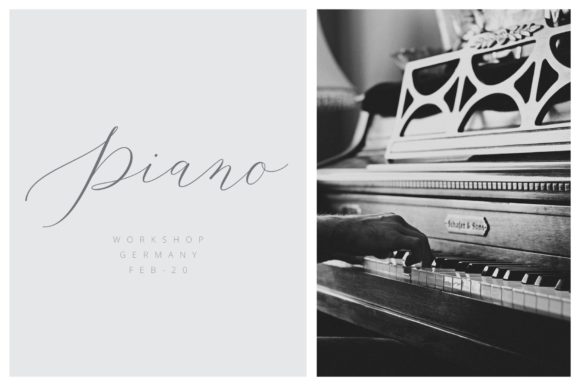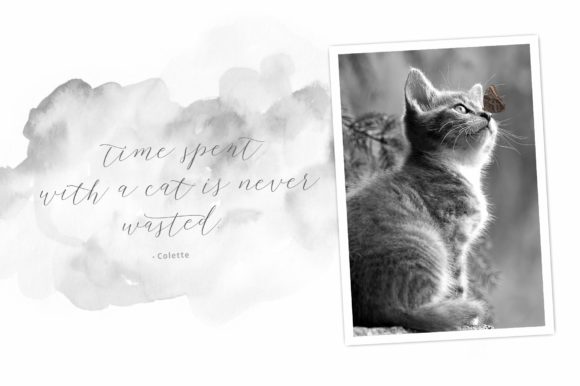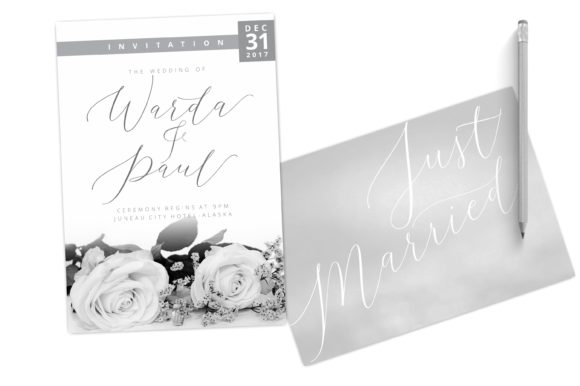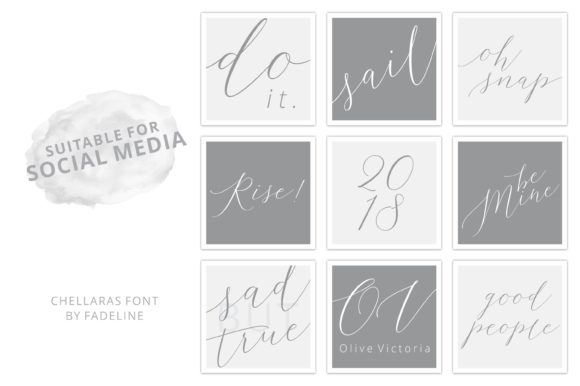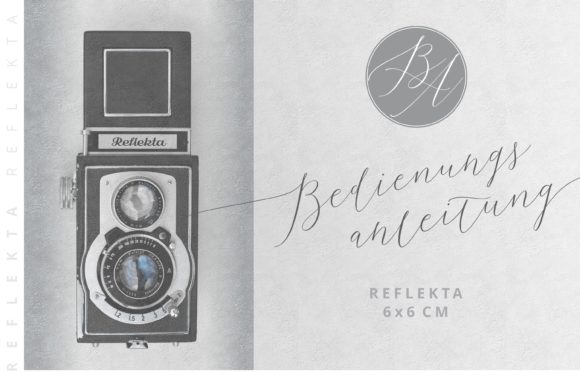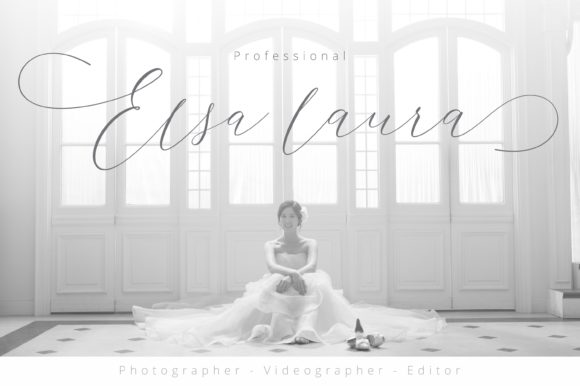
Discover the Unique Charm of Chellaras Font
Have you ever stared at a blank page, trying to come up with the perfect design concept, but feeling stuck? You know, that moment when the creative juices just aren’t flowing? It’s a familiar feeling for many designers, but it’s exactly those moments that make us appreciate the tools that can help us break through the barrier. For those who love handwritten fonts, we’ve got some exciting news to share.
Meet the Chellaras Font, a stunning handwritten font that adds a cool twist to any design project. With its unique flair and versatility, Chellaras Font is the perfect addition to any designer’s toolkit. Whether you’re working on a branding project, a social media campaign, or a blog post, this font is sure to bring a touch of personality to your design.
As a valuable resource for designers, Chellaras Font offers a level of customization and creativity that’s hard to find in more traditional fonts. Its unique charm will help you stand out from the crowd and make your designs truly unforgettable.
Key Features of Chellaras Font
- Unique Characteristics: Chellaras Font has a unique blend of traditional and modern elements, with intricate details and ornaments that set it apart from other fonts.
Chellaras Font Review
I recently had the chance to work with the Chellaras Font, and I must say it’s an interesting addition to any design project. ✨ The font’s unique blend of modern and traditional elements makes it perfect for projects that require a touch of elegance and sophistication.
Some of the things that work well with the Chellaras Font include:
- ✨ High level of customizability: The font comes in various weights, styles, and languages, making it versatile for different design needs.
- ✨ Great legibility: The font is highly readable, even at smaller font sizes, which is essential for body text and other areas where readability is crucial.
- ✨ Beautiful typography: The font’s design is aesthetically pleasing, with a clear focus on creating a visually appealing reading experience.
- ⚠️ Limited support for certain languages: While the font does support many languages, it may not be suitable for projects that require a wide range of language support.
- ⚠️ May not be ideal for display use: While the font looks great for body text, it may not be the best choice for display use, such as headings or titles, where a more dramatic font might be preferred.
Overall, the Chellaras Font is a solid choice for designers looking for a versatile and elegant font. While it may have some limitations, its strengths make it a great addition to any design project.